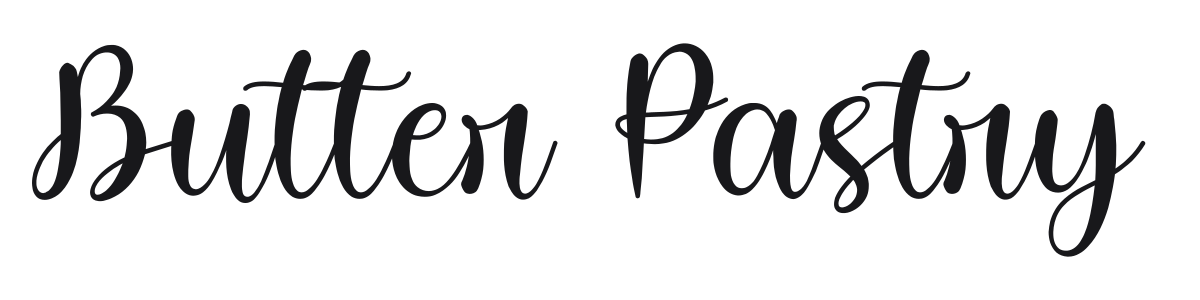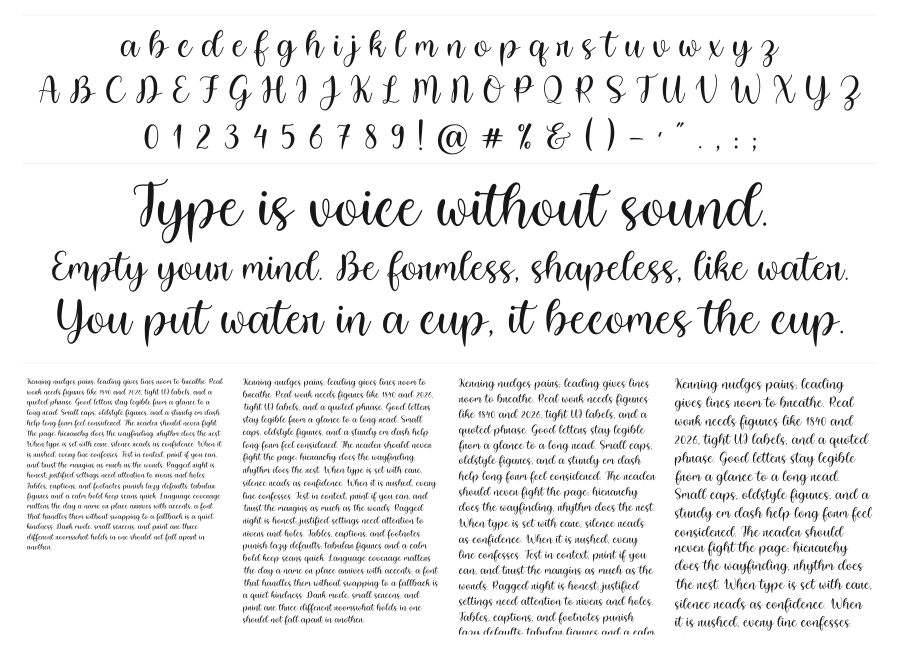
Butter Pastry
Butter Pastry is a flowing casual script from Typesthetic Studio with lush swashes and ink-drawn stroke contrast. The generous ascenders and looping connectors give it a lively, handcrafted warmth that feels at home on wedding invitations, bakery packaging, or lifestyle branding. It's expressive without being overwrought.